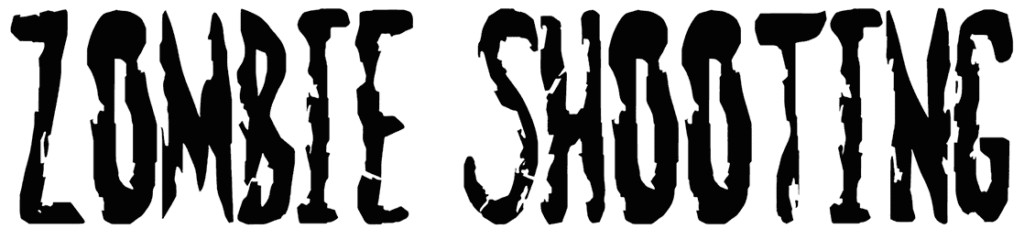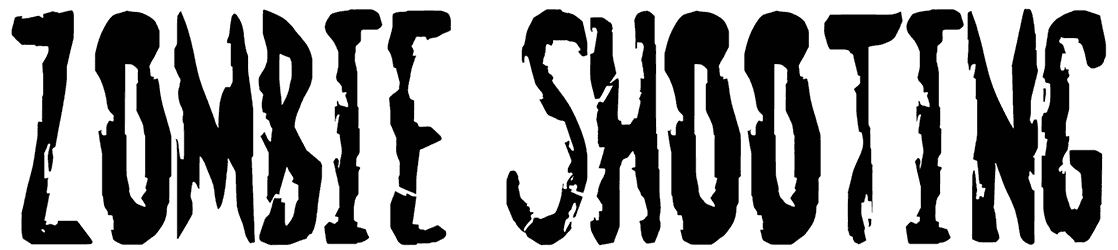
Zombie Shooting Font
If you are looking for an all-caps zombie font that looks perfectly matched with any kind of creative ideas, such as magazines, flyers, street posters, graffiti, or digital banners.
Since it comes with a wavy style and faded letters, it can bring a vibe of dread, fear, grunge, or tenderness to all of your graphic content. Aside from this masterpiece, don’t forget to check out the RB archive for your own convenience.